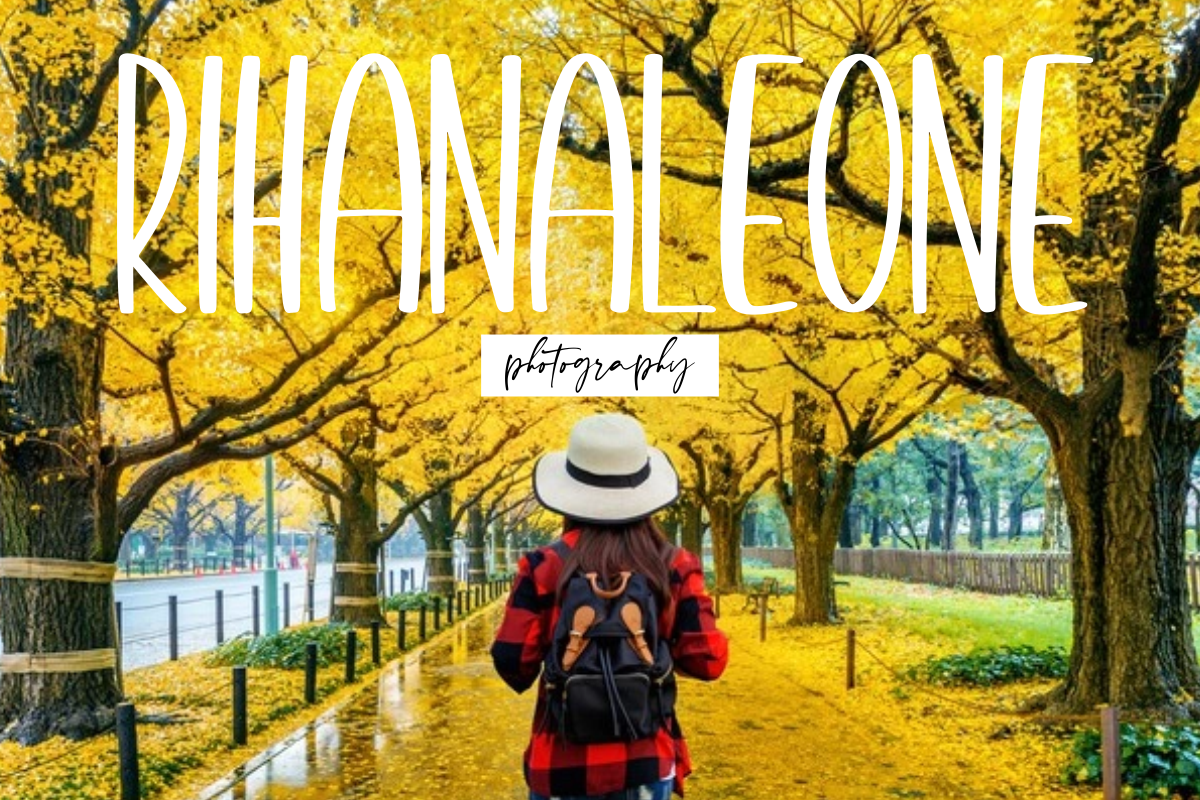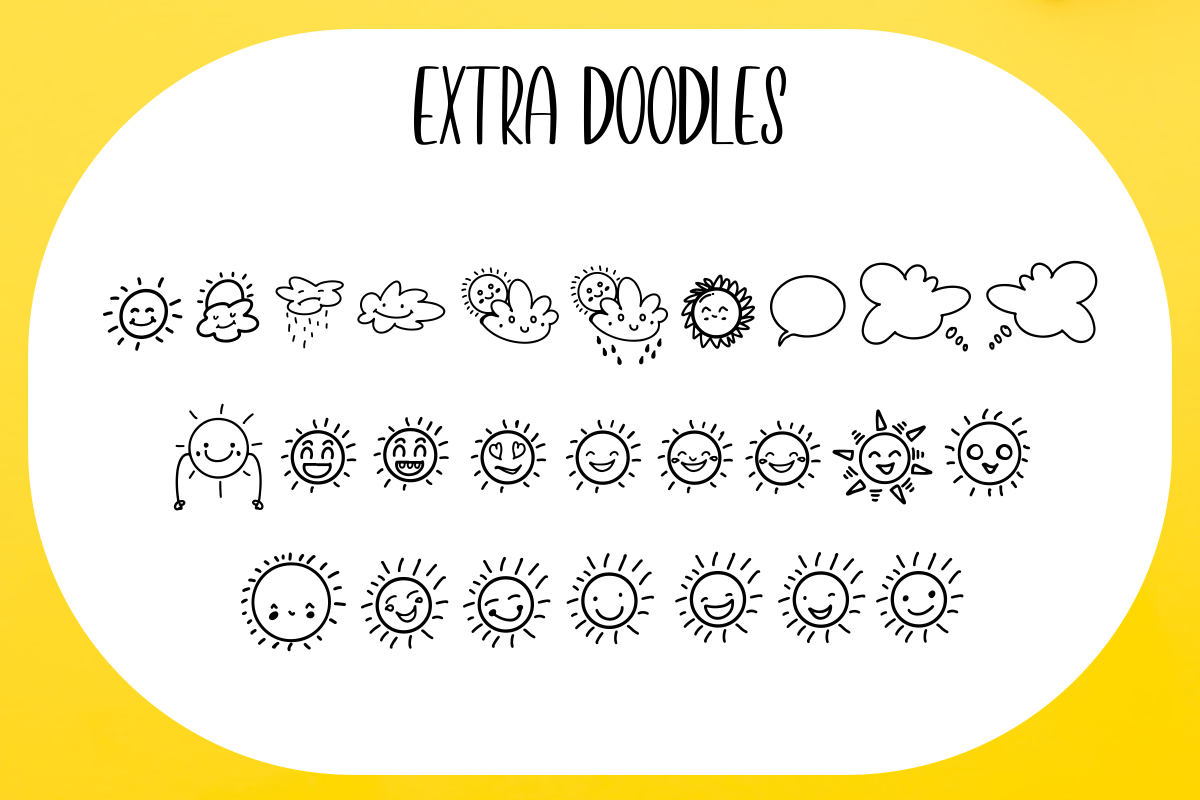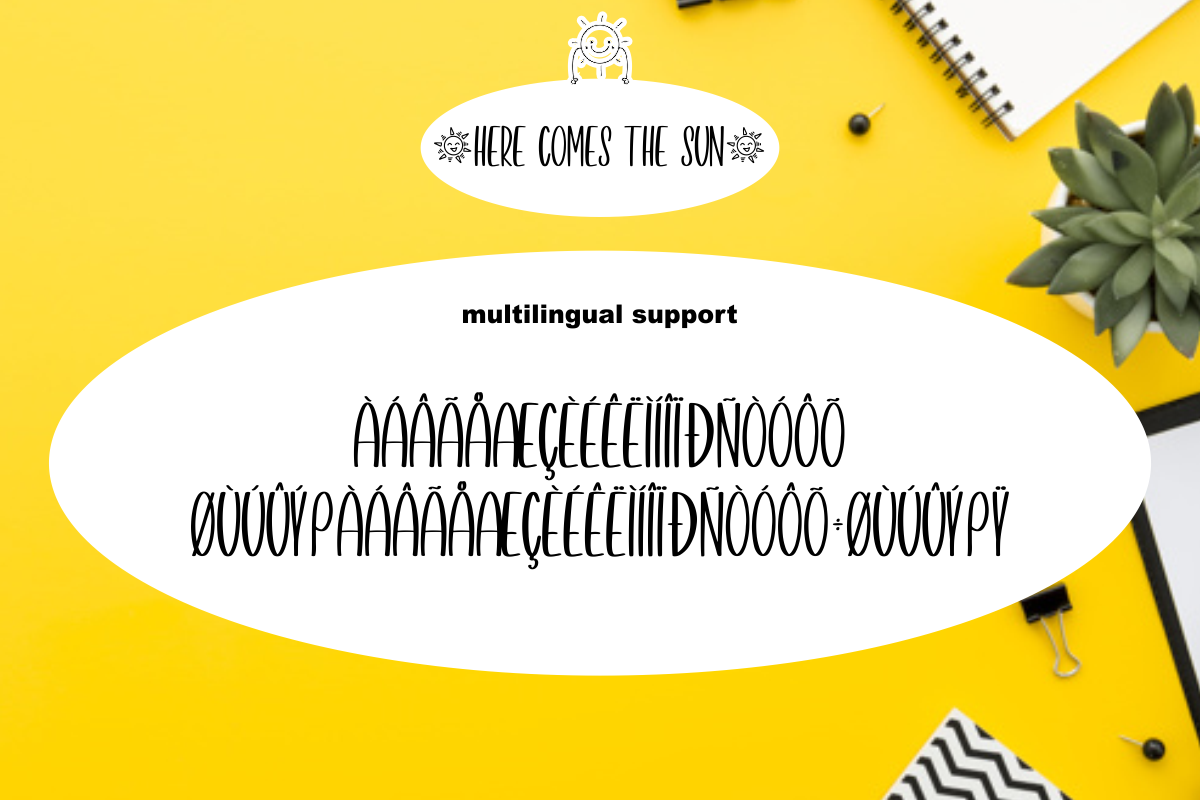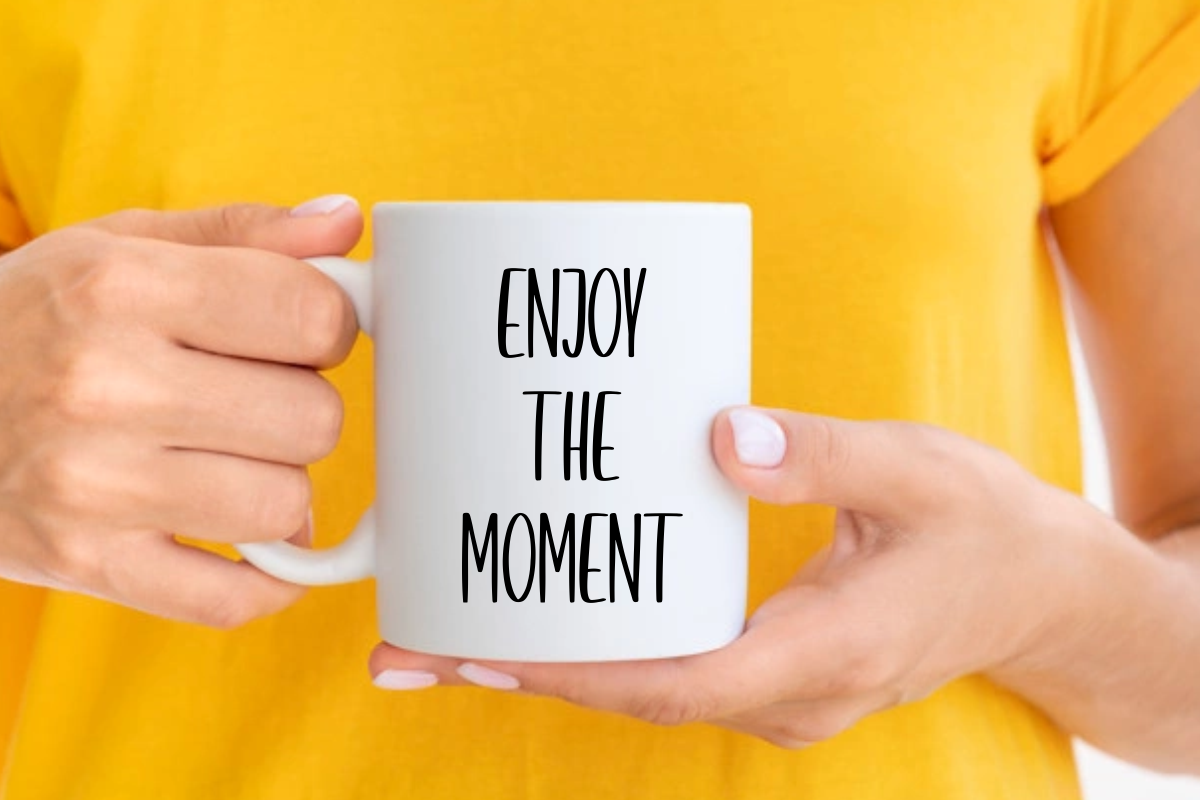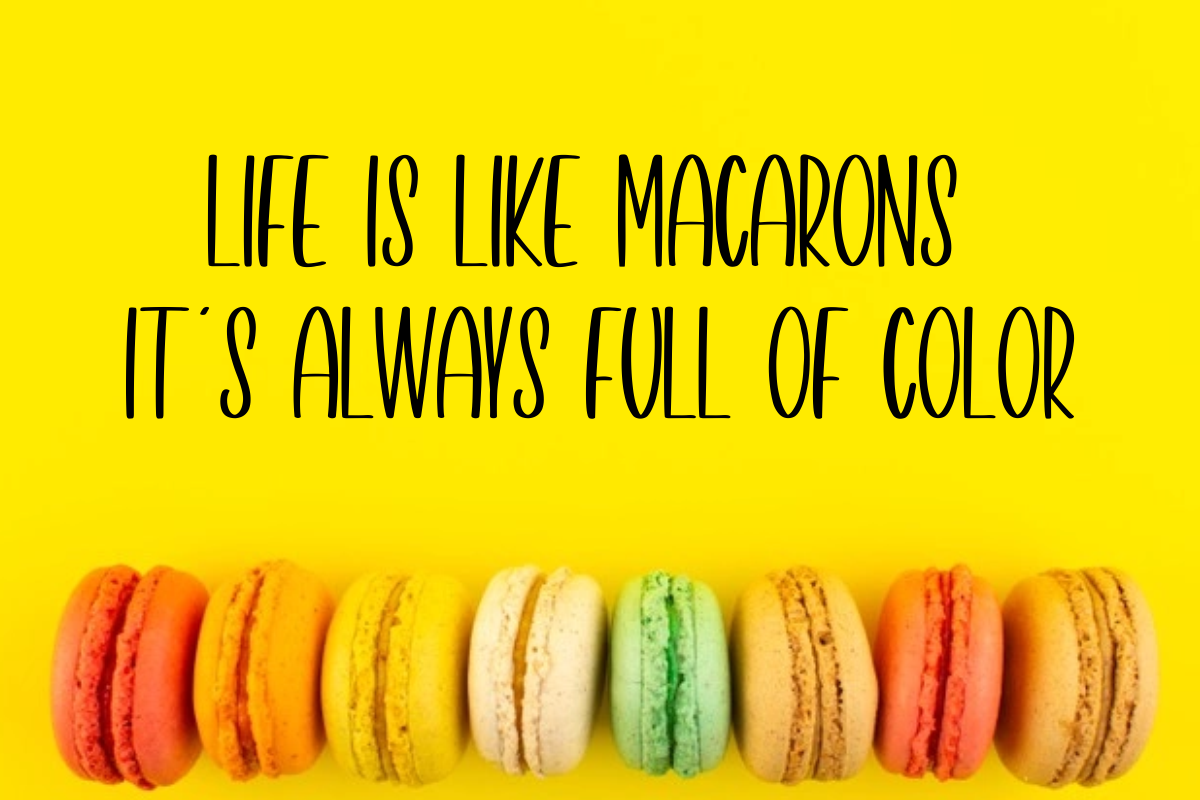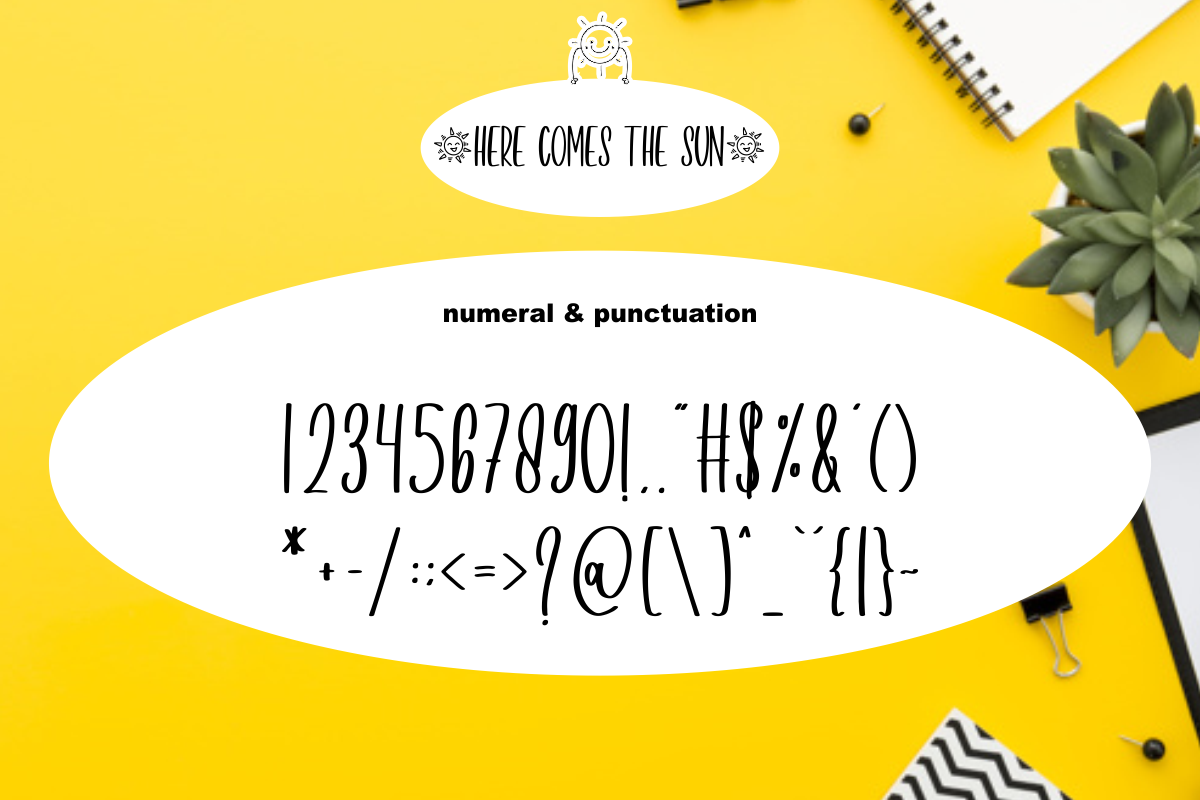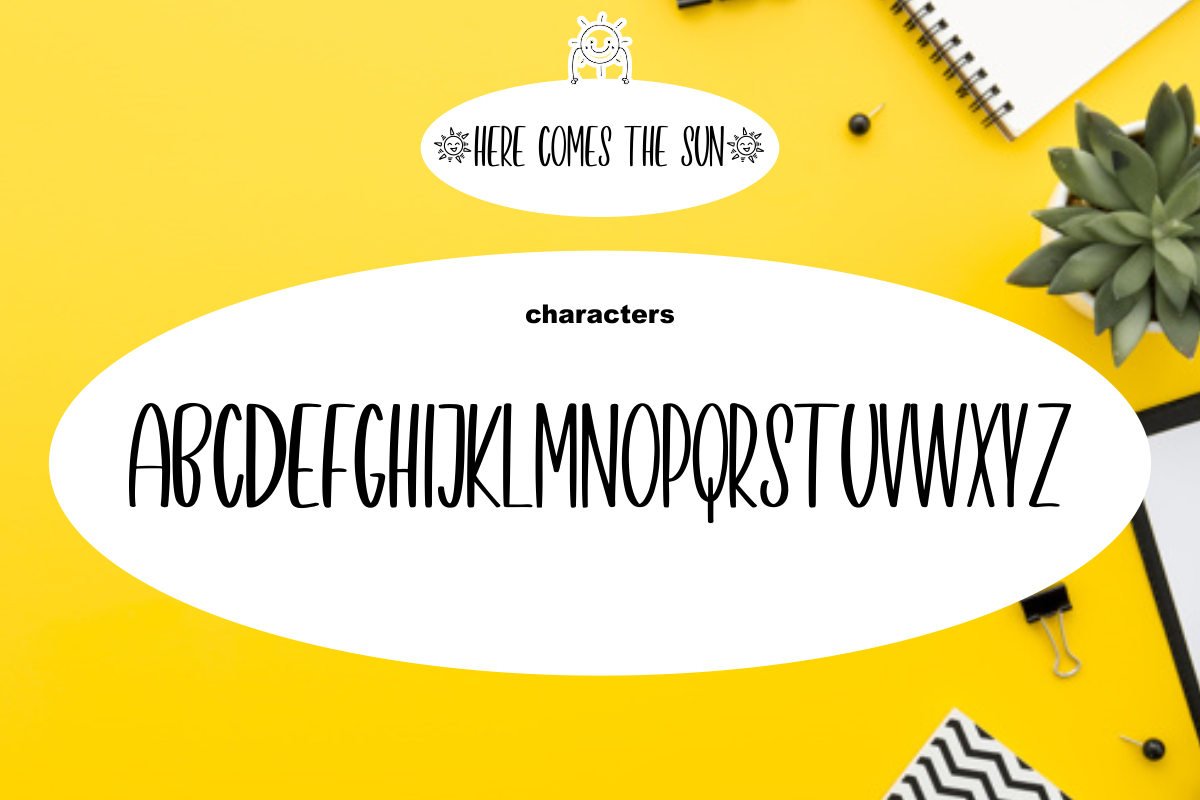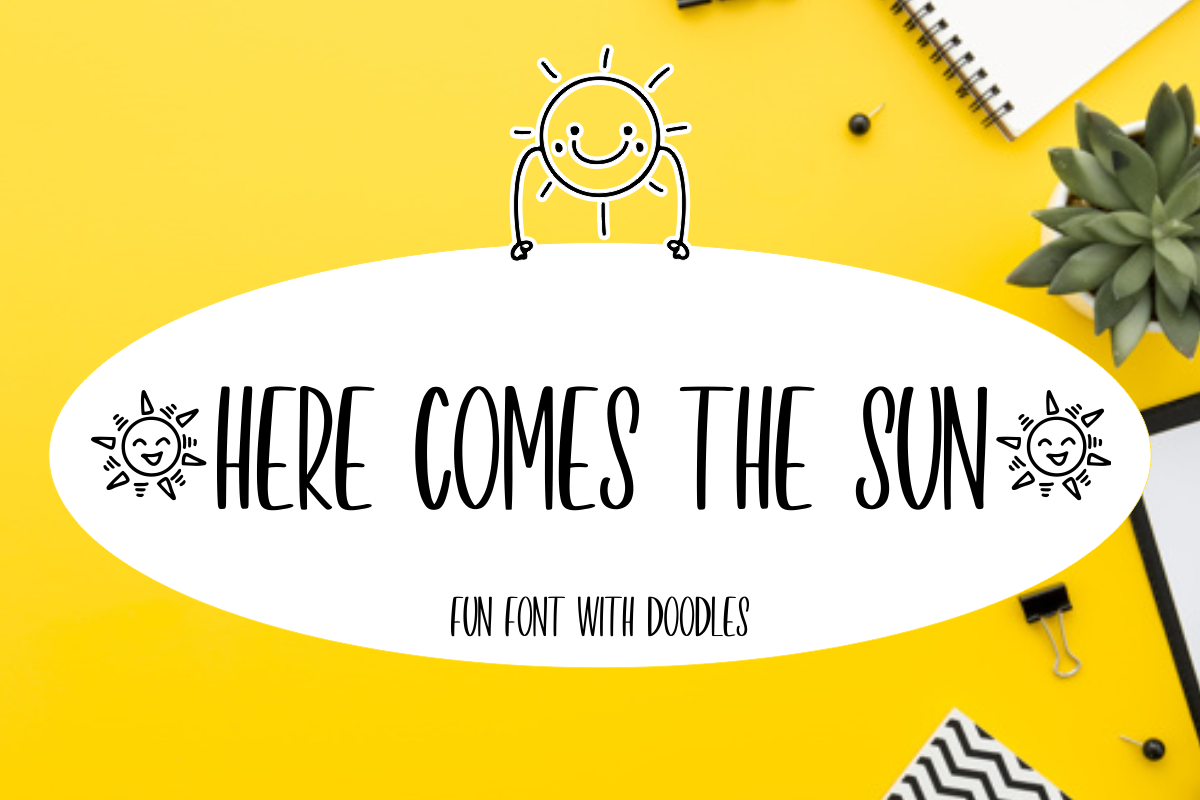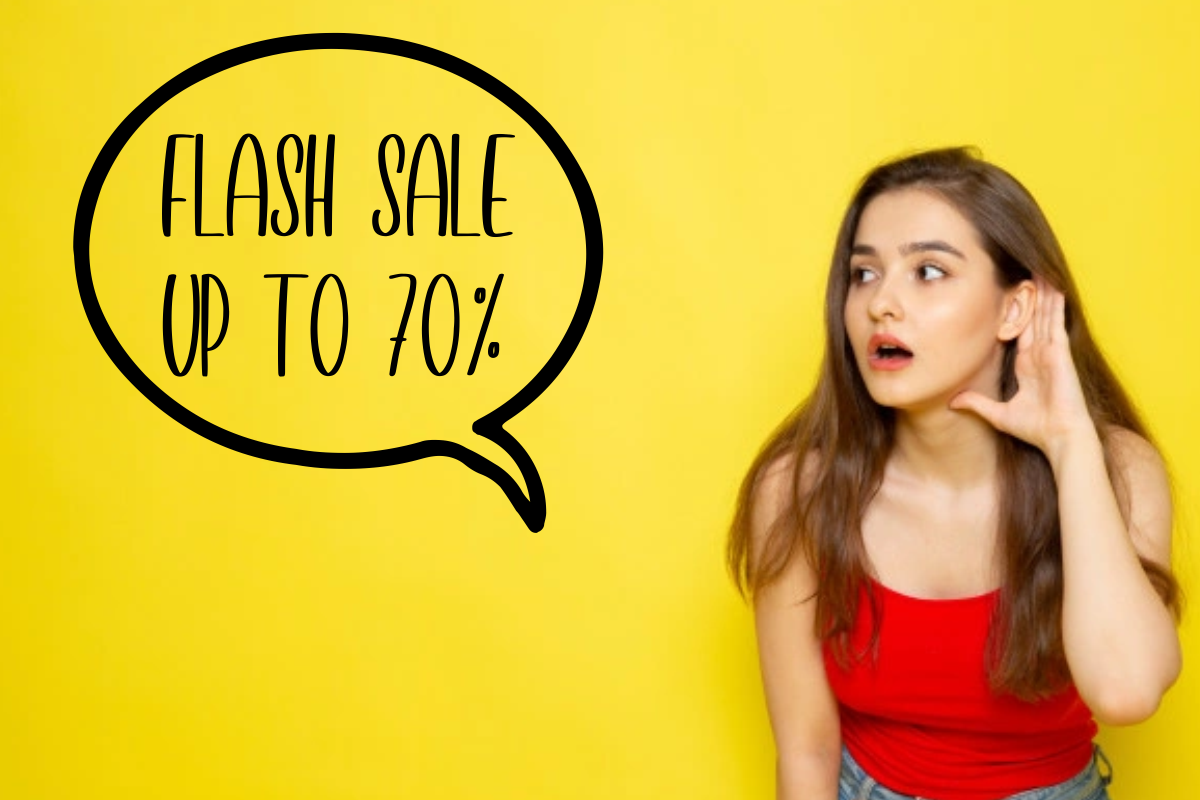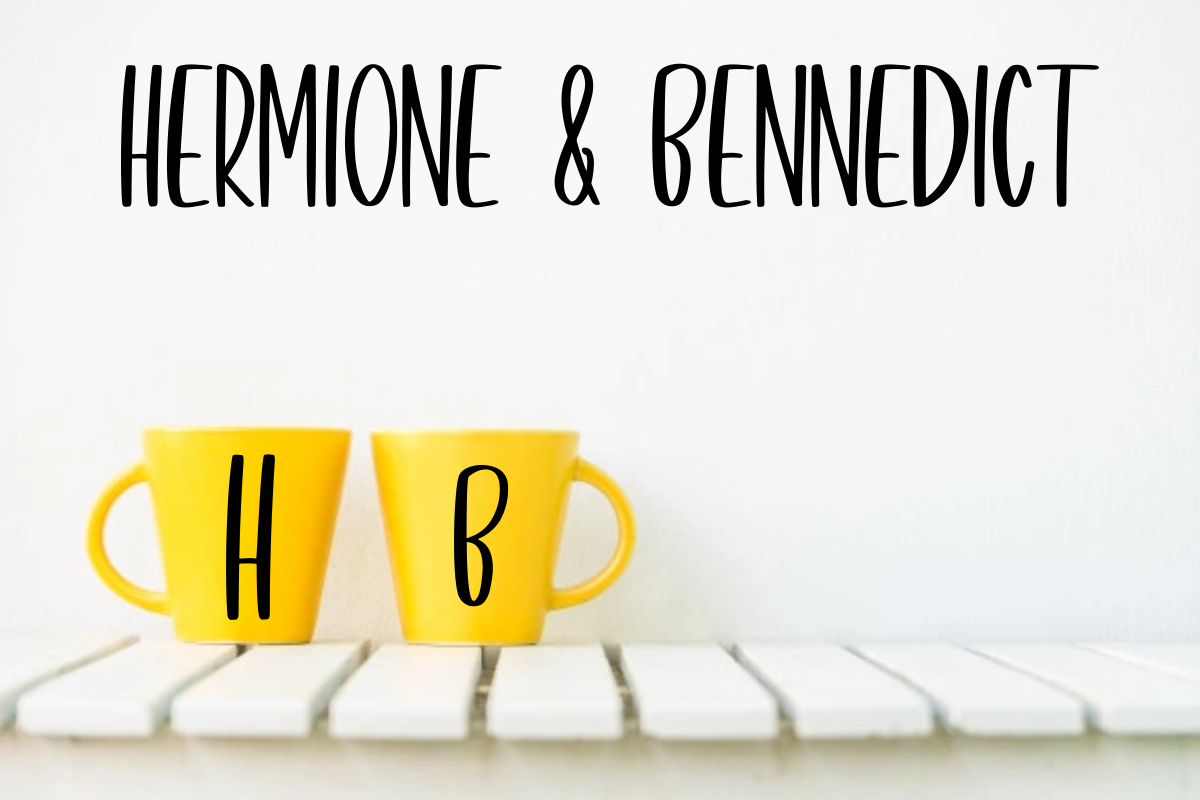
Here comes the sun - Display Font
Here comes the sun is a Handwritten Display font, this font Is perfect for logos, invitations, stationery, wedding designs, social media posts, advertisements, product packaging, product designs, label, photography, watermark, special events, or anything.
Here comes the sun with a full set of uppercase and lowercase letters, doodles, multilingual symbols, numerals, punctuation.